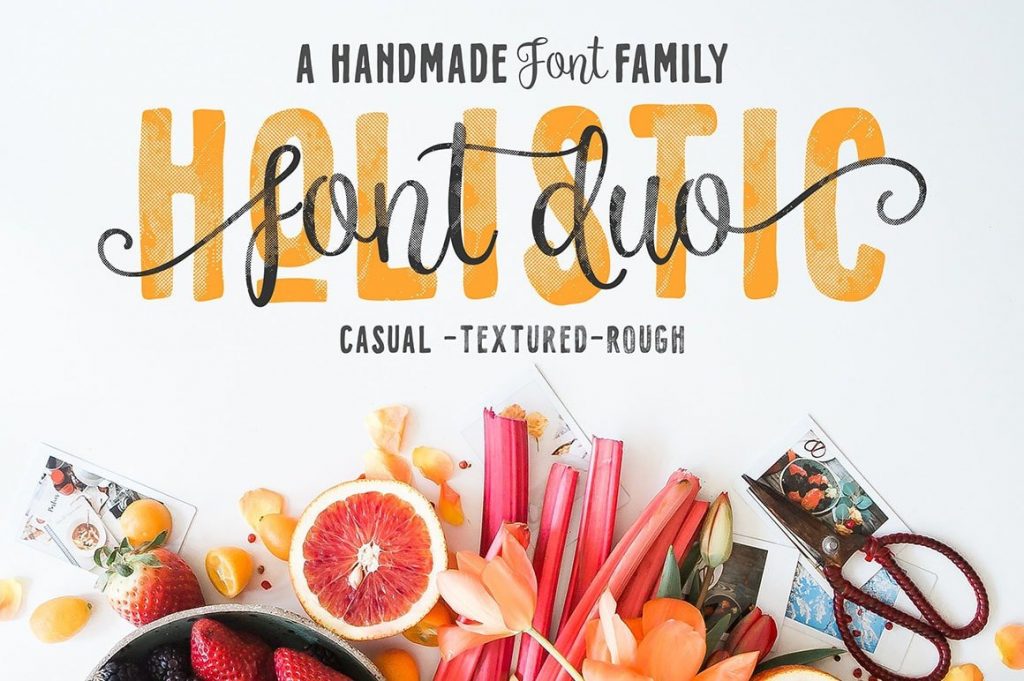
Need a creative & unique font family for your new custom project and not sure about best font combination? No problem at all 😉 You’ll find here 2 handwritten fonts with 3 styles that work great together in Holistic Font Duo! Get it now at 90% discount!
Holistic Font Duo comes with two casual yet delicate style (script and sans), then wrap in three different (solid, textured and rough). Holistic Script includes alternative characters, you can play with it to get a bit messy but still pretty.